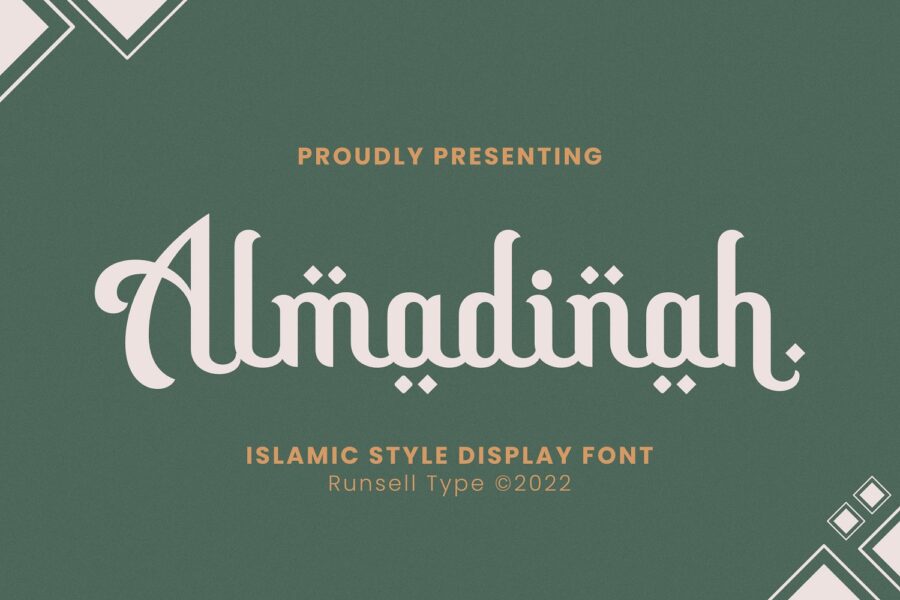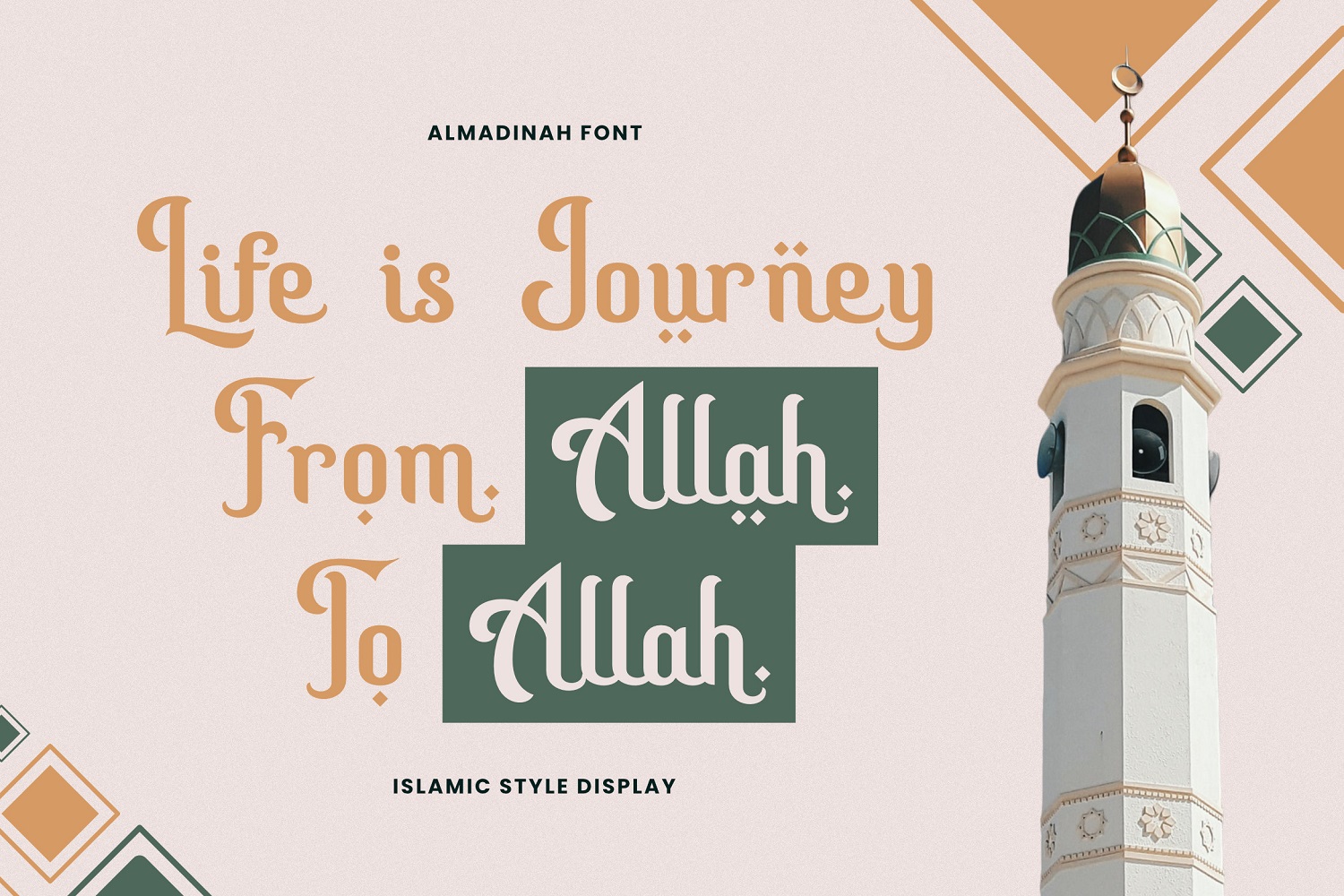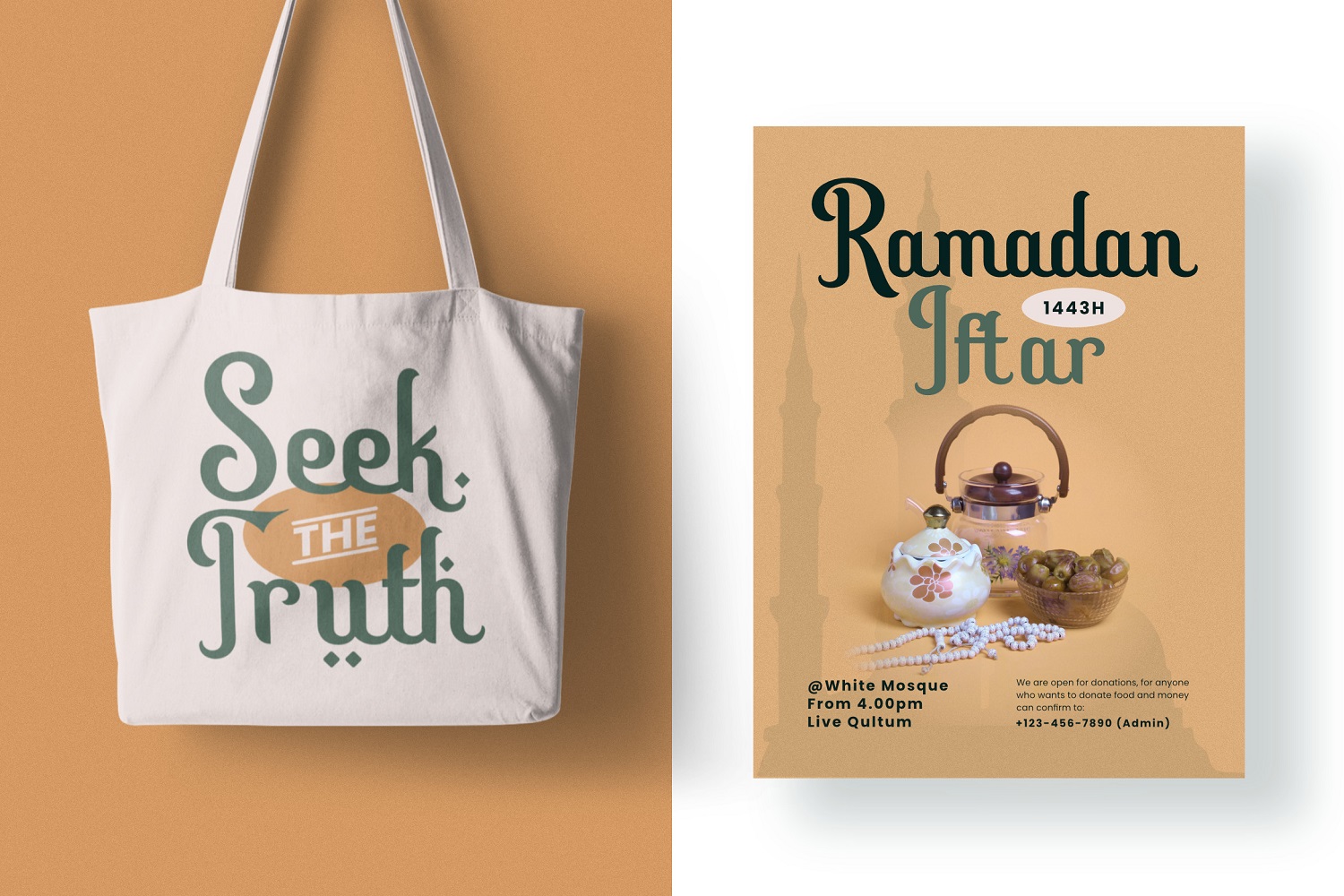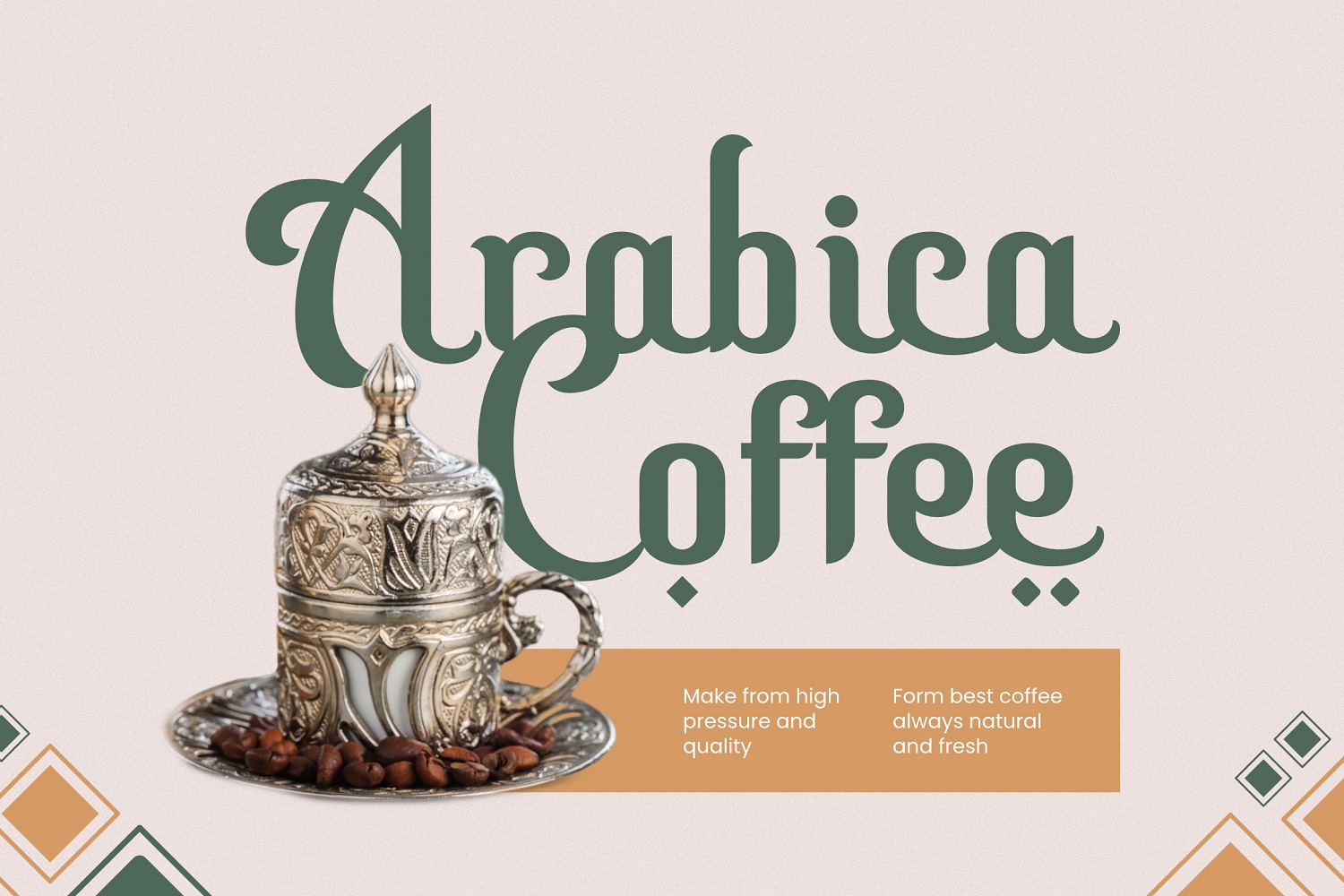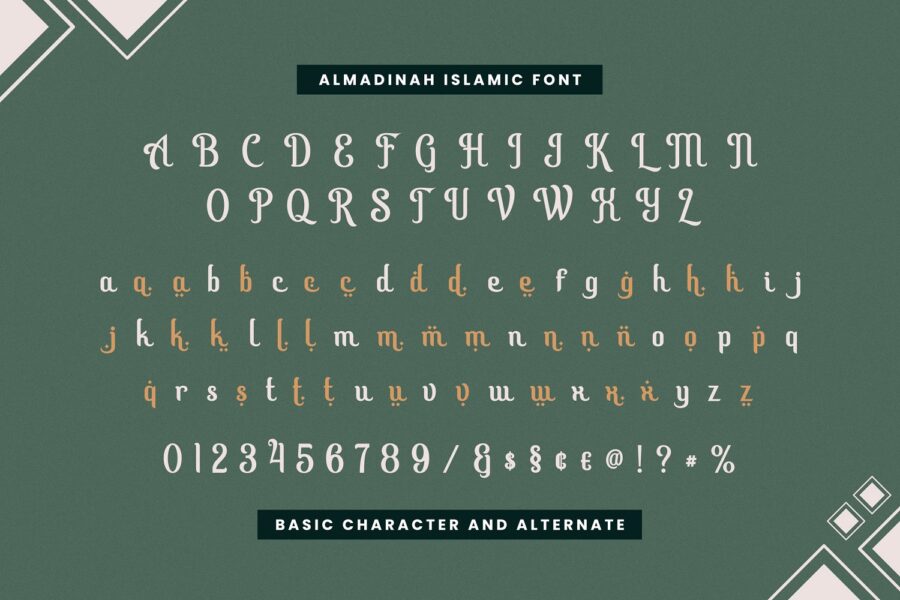
Almadinah is an elegant Islamic display font that merges vintage serif charm with delicate Arabic-inspired aesthetics. Designed with graceful swashes and decorative diacritics, it captures the spirit of tradition and modern expression. Its well-balanced curves and extended character set make it ideal for Islamic quotes, Ramadan campaigns, packaging, and educational materials related to Islamic culture.
This font includes uppercase, lowercase, numerals, punctuations, and alternates to allow for creative compositions. Almadinah’s unique character design stands out in both print and digital formats, making it a powerful choice for branding, editorial headlines, or spiritual-themed merchandise. Whether you’re working on mosque event posters, halal product labels, or Islamic educational tools, Almadinah will add a soulful and refined touch to your typography.
Almadinah